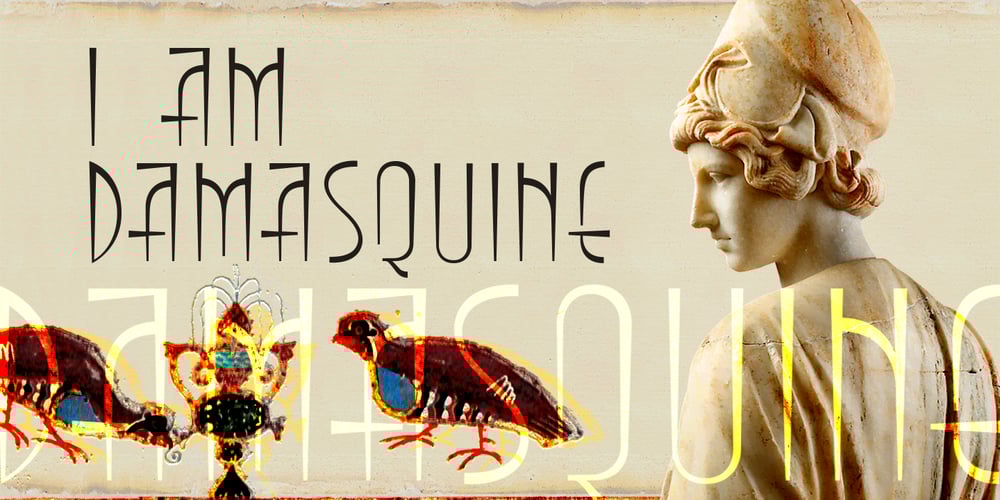
Damasquine Font Family was designed by Bogdan Balatchi and published by DePlictis Types. Damasquine contains 1 styles and family package options. Damasquine works well for headlines and titles mostly, could be a sharp Art Deco reinterpreted typeface with a touch of archaic lettering inspiration.